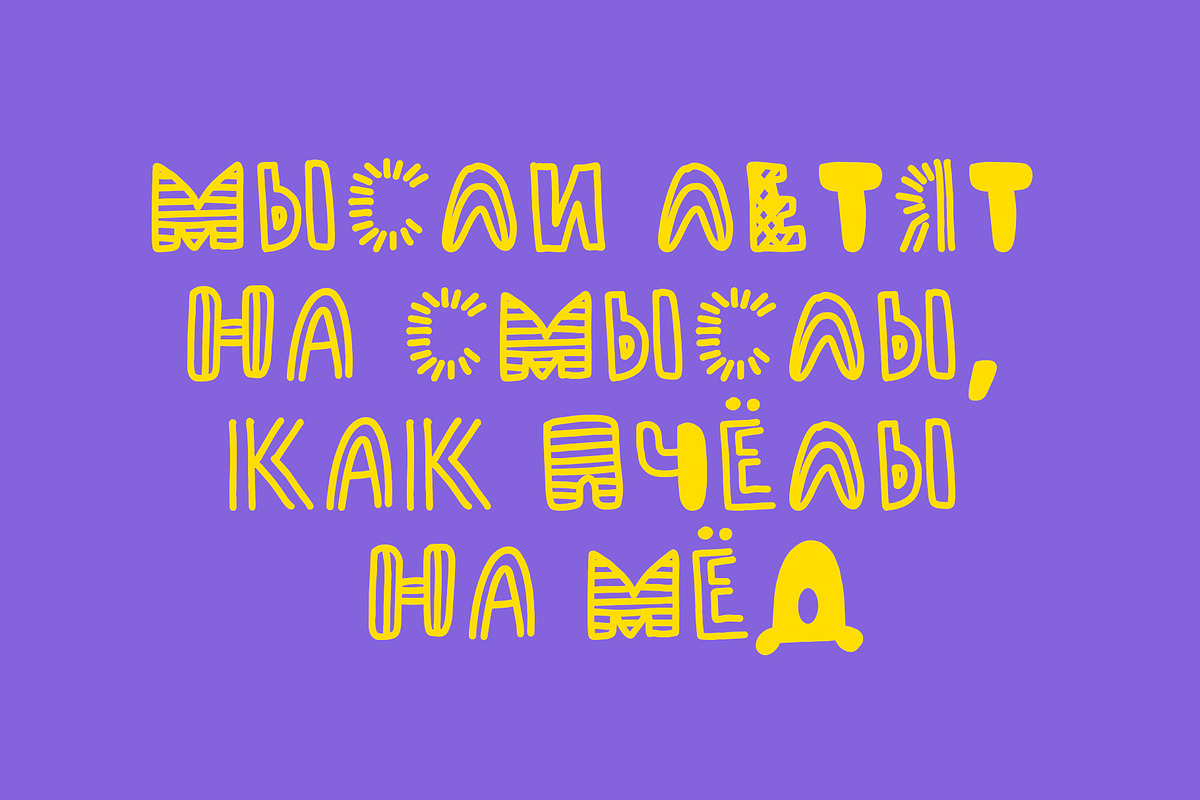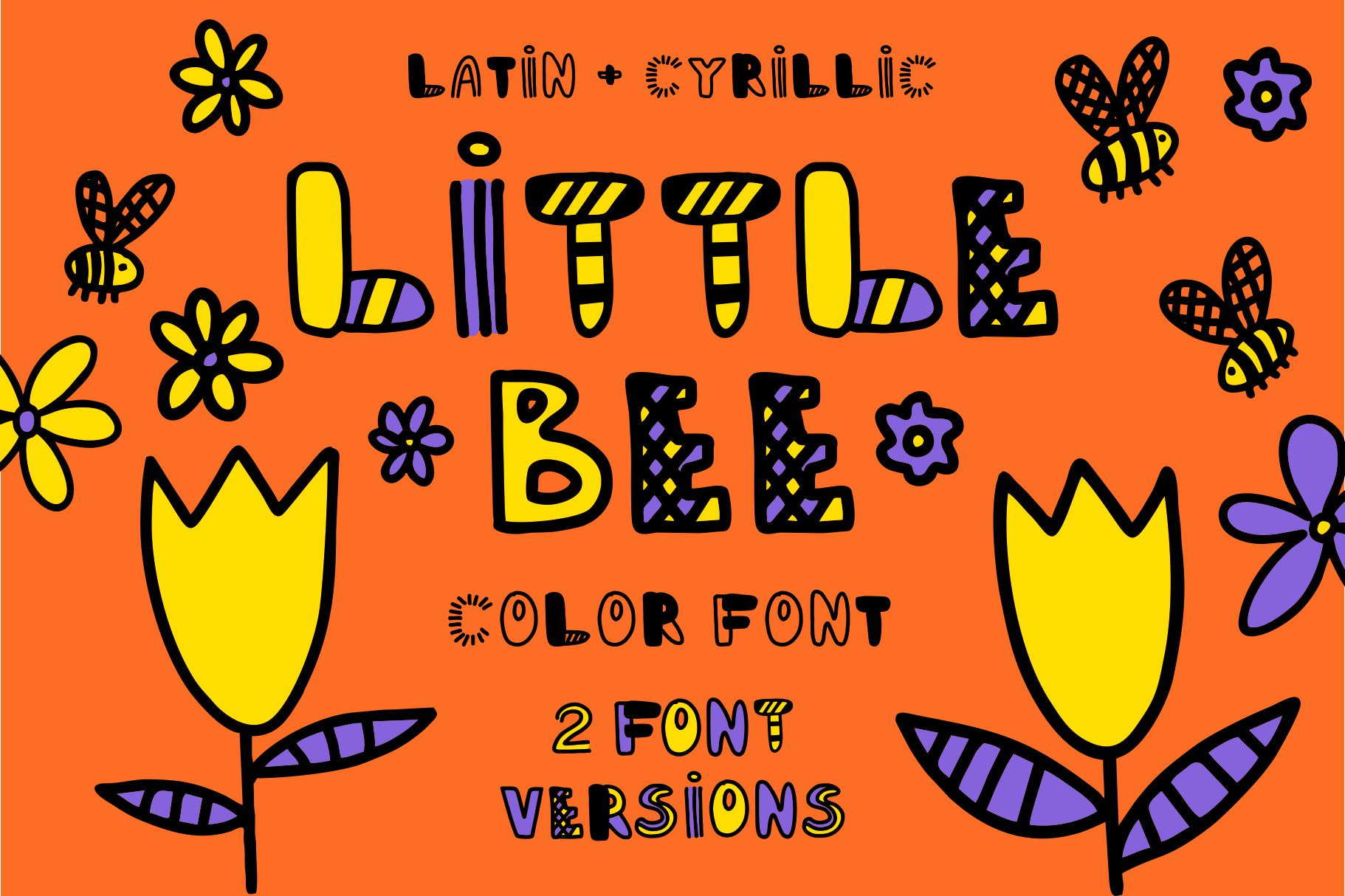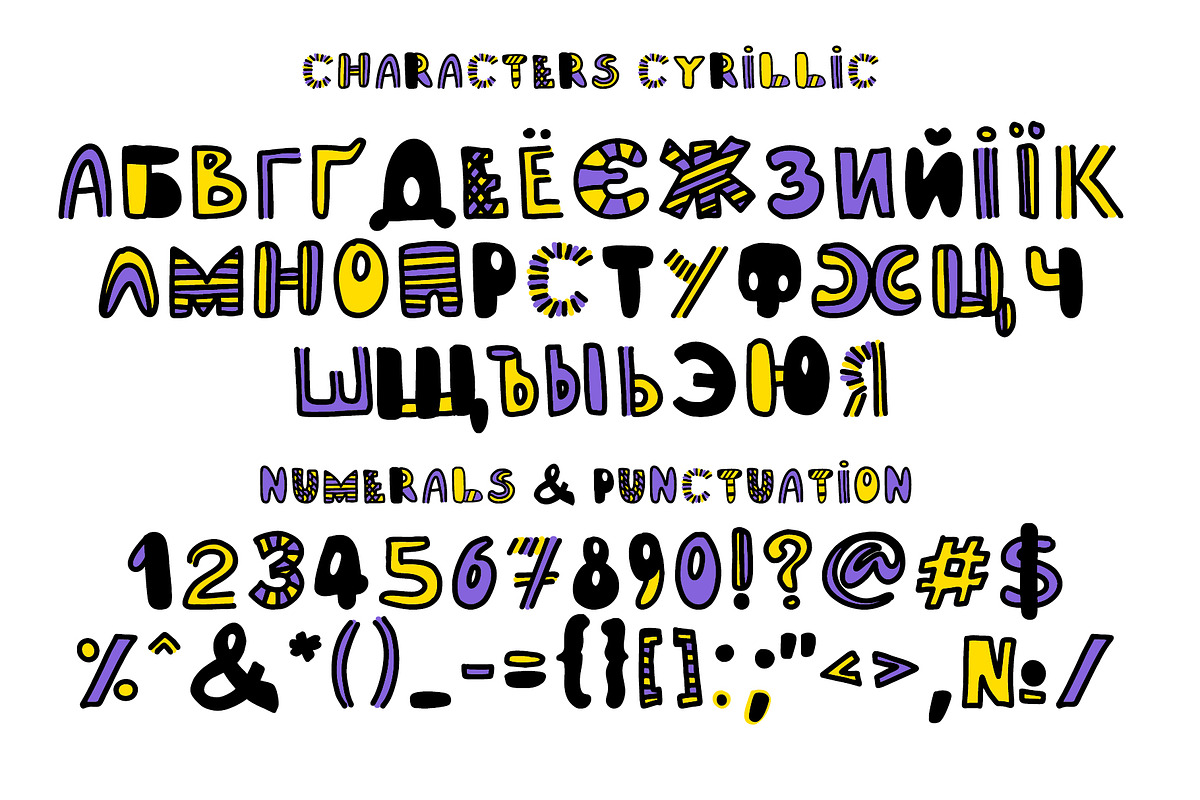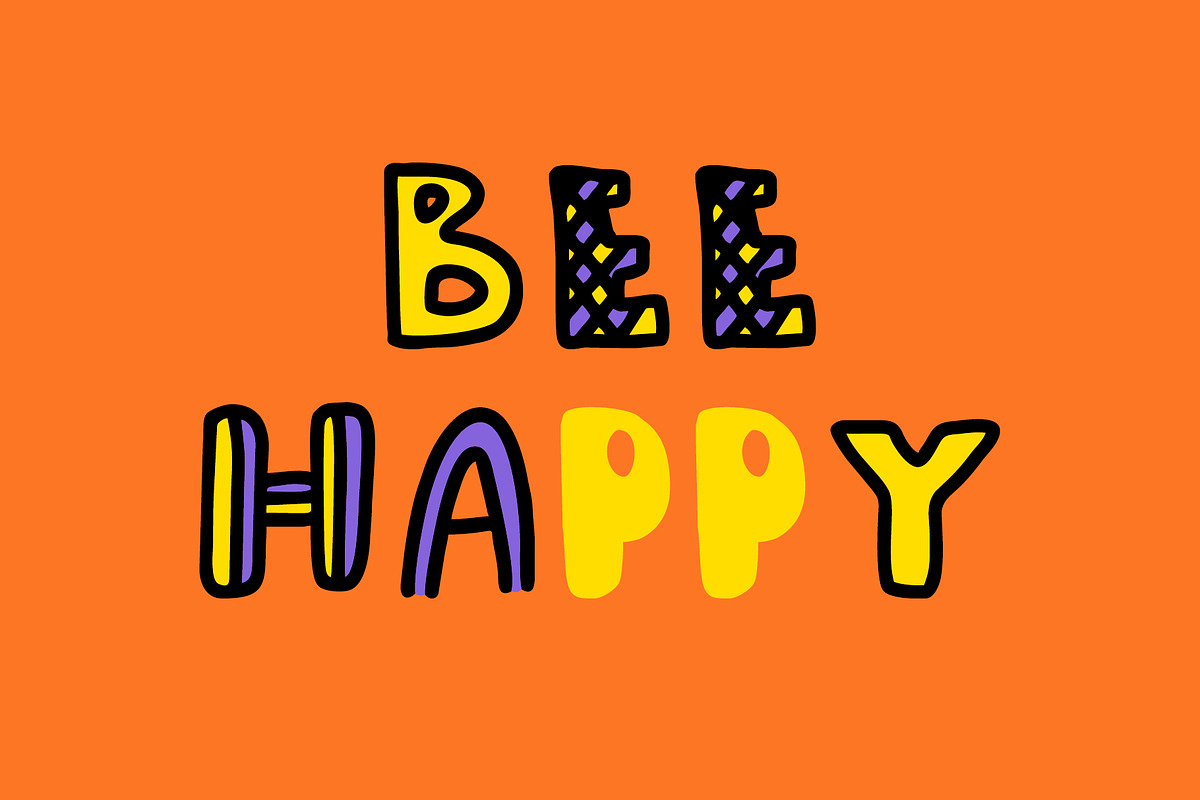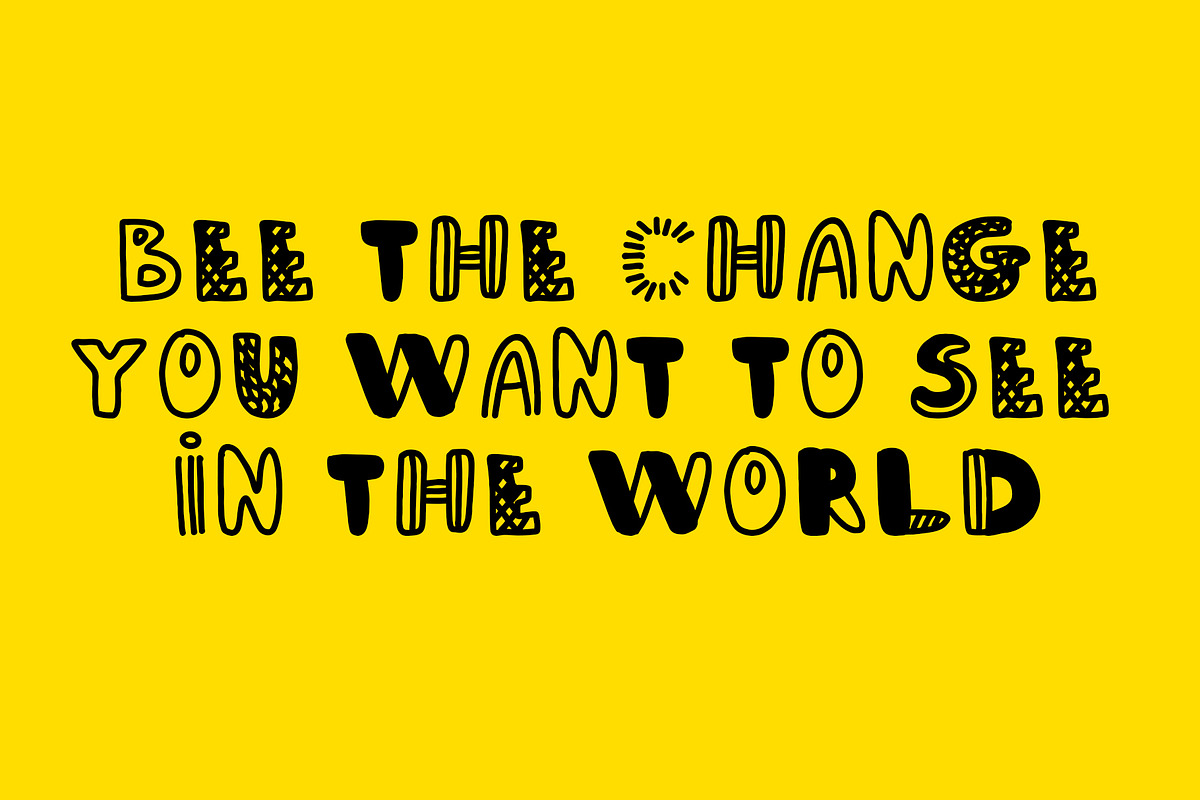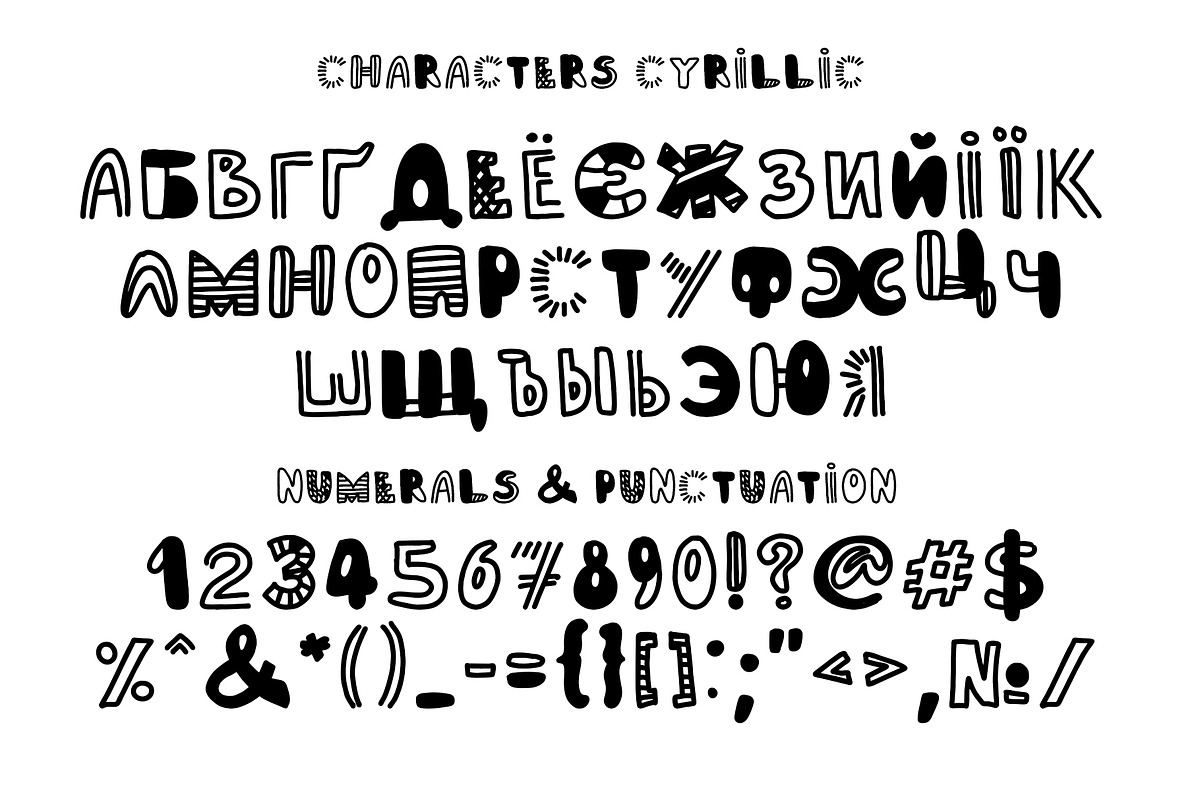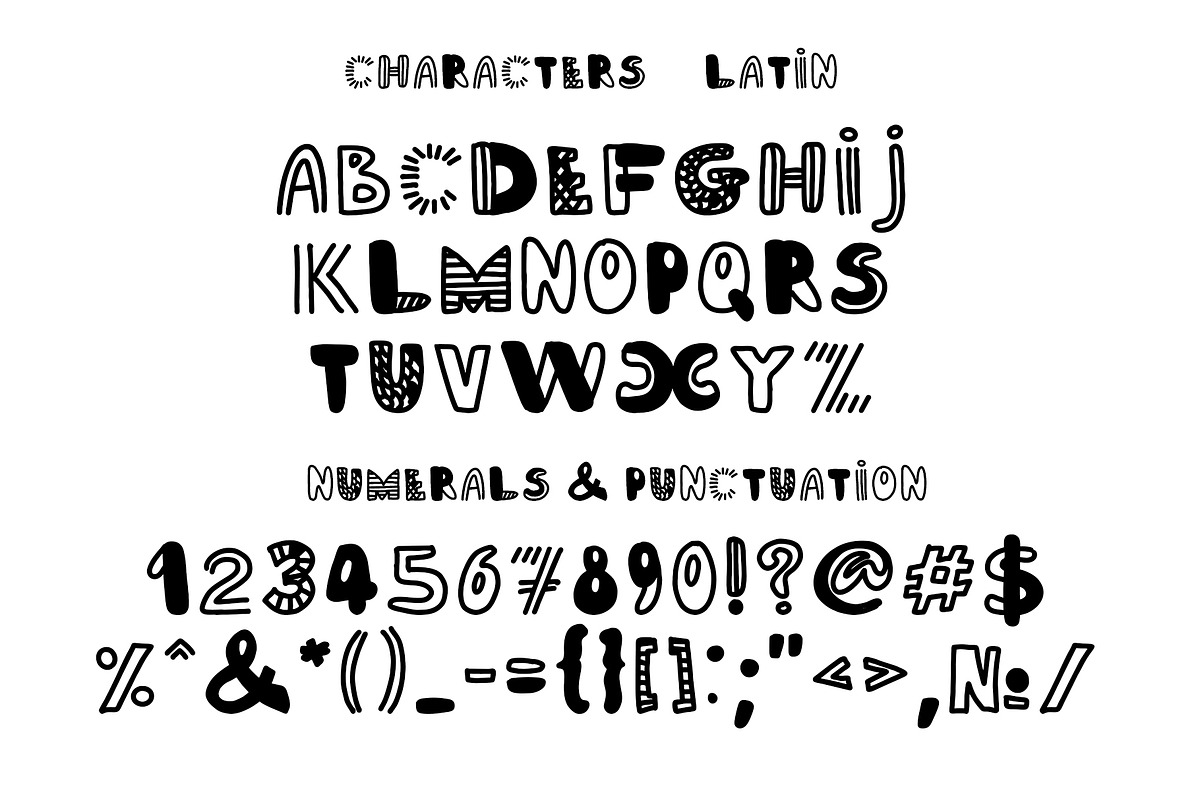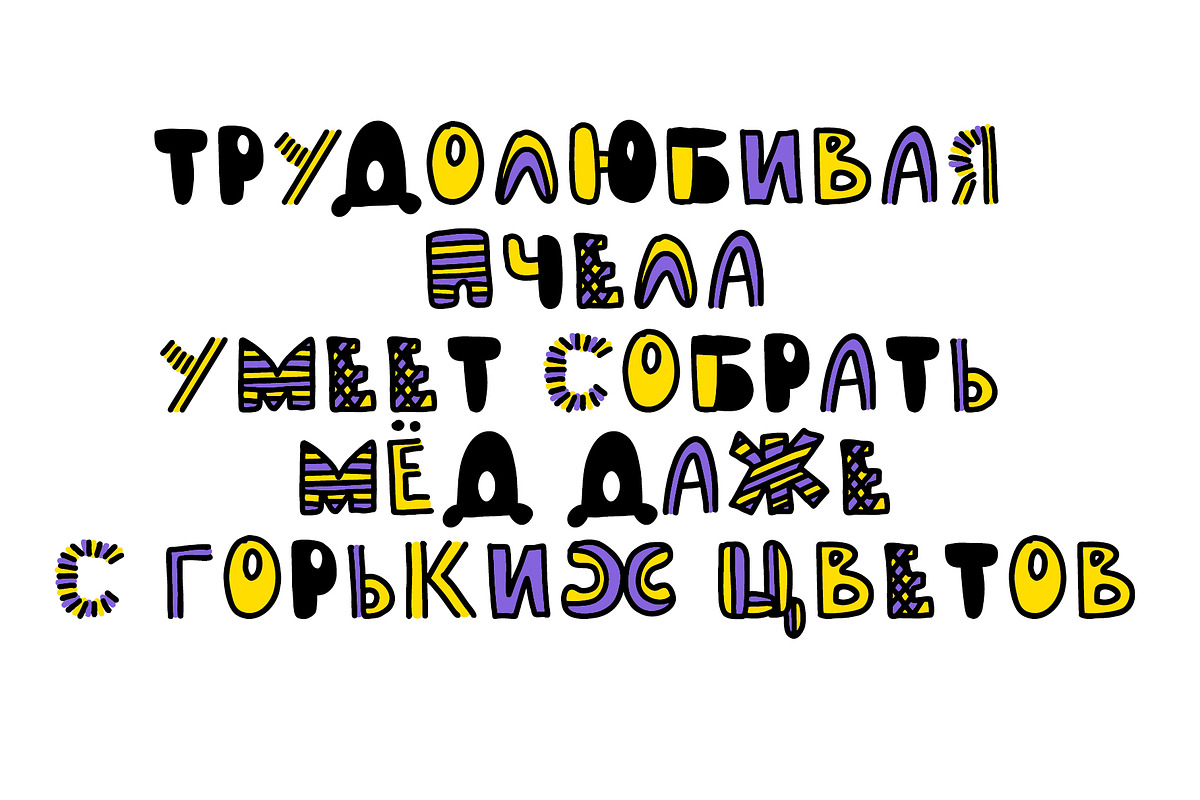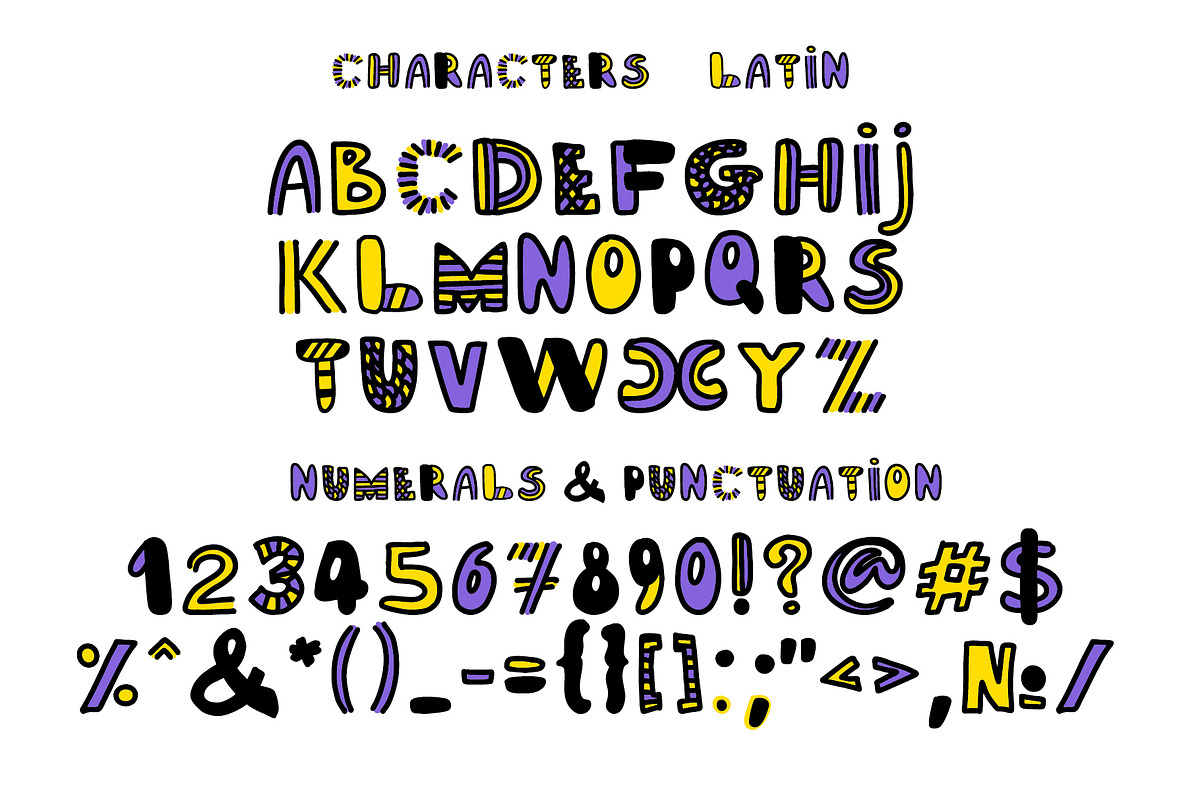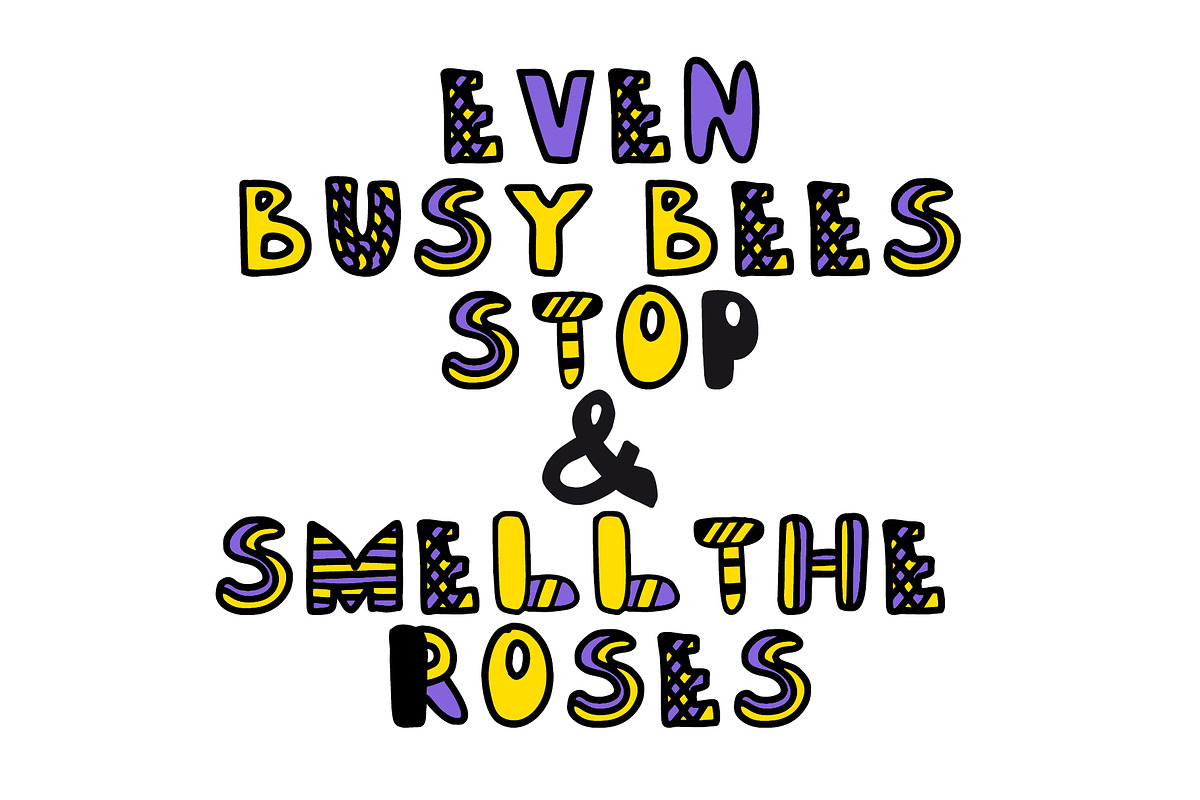
Little Bee Color Font
Little Bee - color OpenType-SVG font with Latin and Cyrillic letters! It has two versions - color and classic versions. It's a fun and cute font! This font work nicely for all sorts of things including t-shirt design, typographic art, social media images and so much more!
Standard characters A-Z, 0-9,and punctuation + classic version for the Latin Basic and Western European set, Cyrillic А-Я set. Thanks and Enjoy!